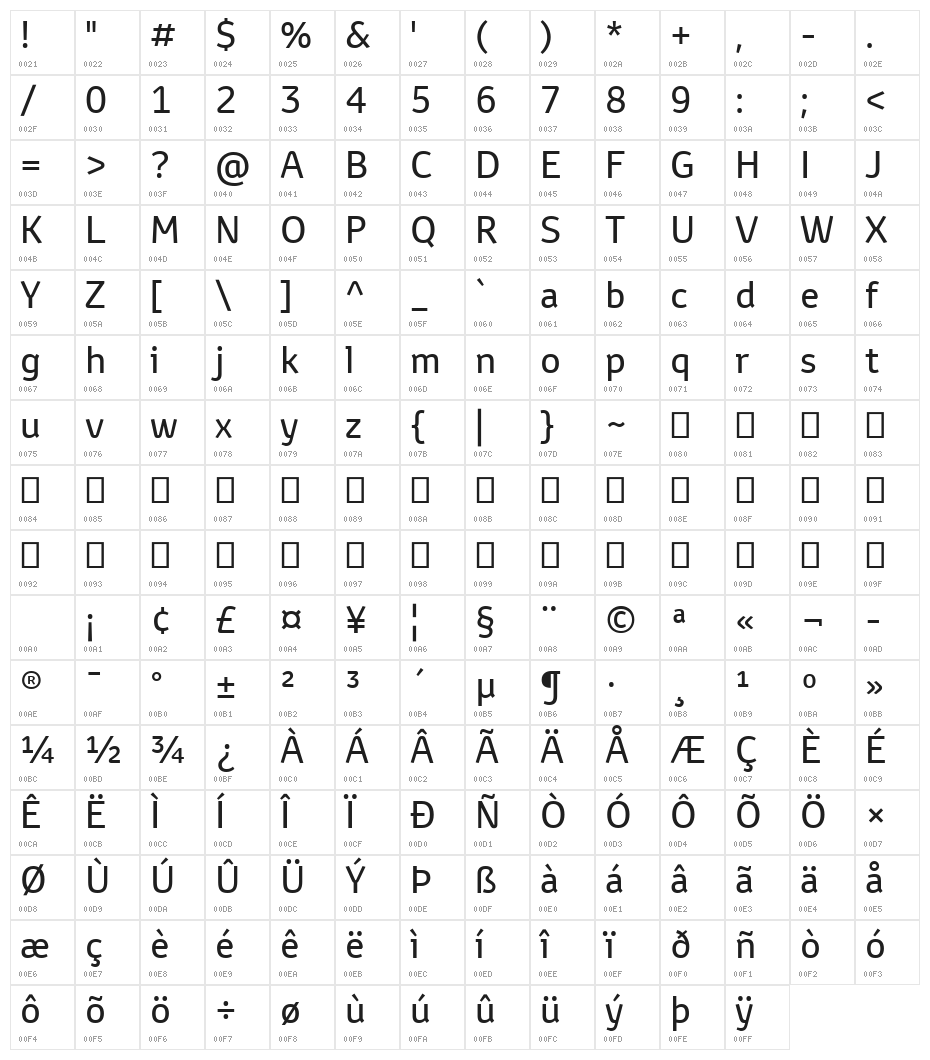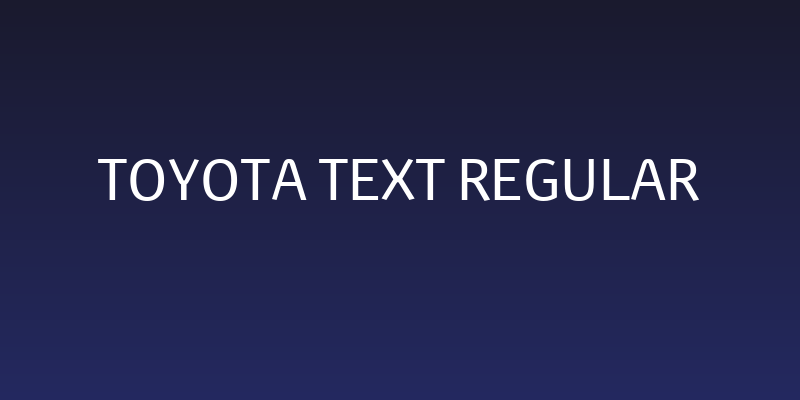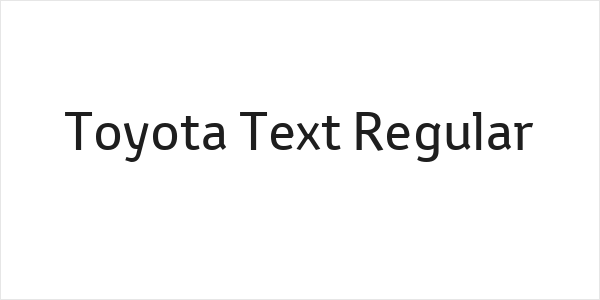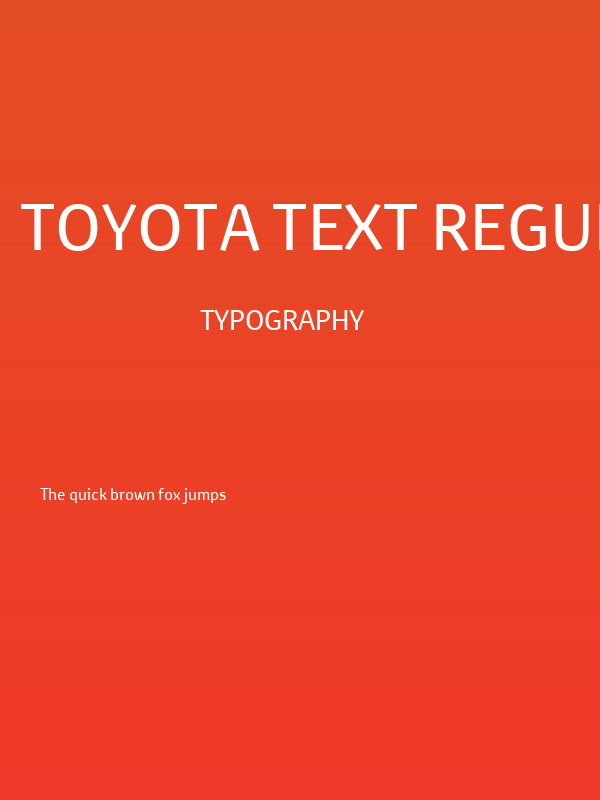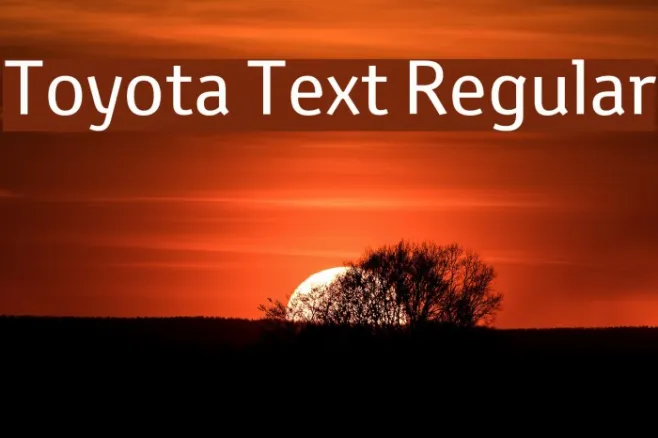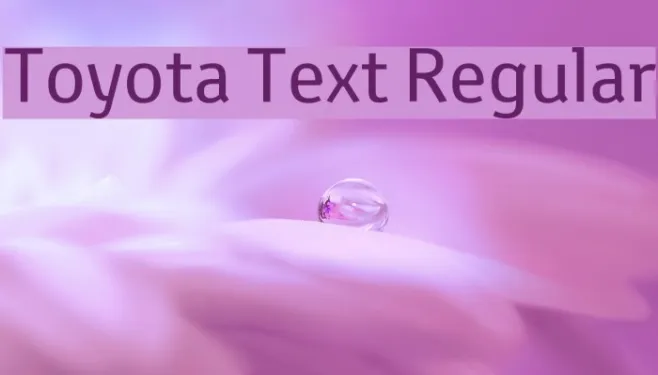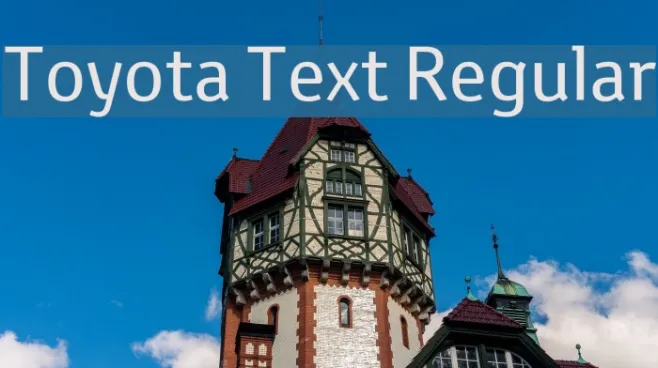
Toyota Text Regular Font
Toyota Text Regular Description
This font features a clean and modern sans-serif design, characterized by its simplicity and readability. The letters are evenly spaced, with a consistent stroke width that gives it a uniform appearance. The uppercase letters are bold and assertive, while the lowercase letters maintain a friendly and approachable look. The numerals are clear and distinct, making them easy to read in various contexts. Special characters are well-defined, ensuring versatility in different applications. Overall, this font exudes a professional and contemporary vibe, suitable for a wide range of uses.
| Proposed Projects | Ideal for corporate branding, website design, user interfaces, and print media. |